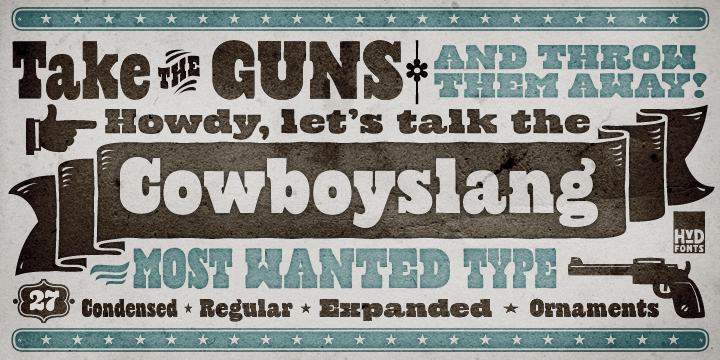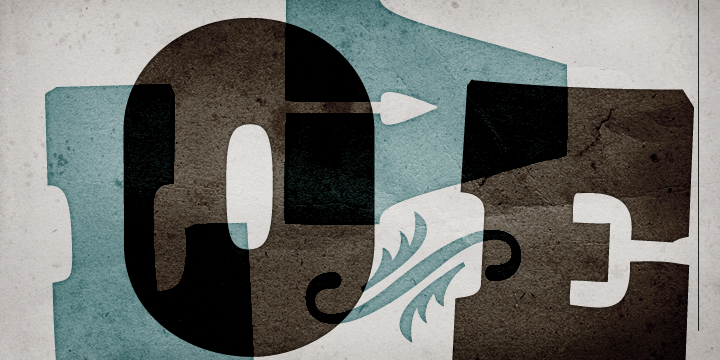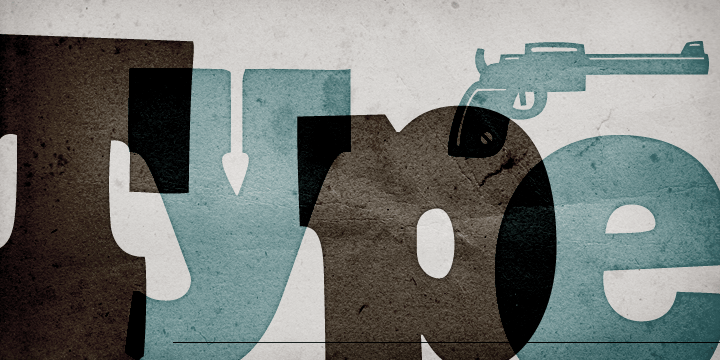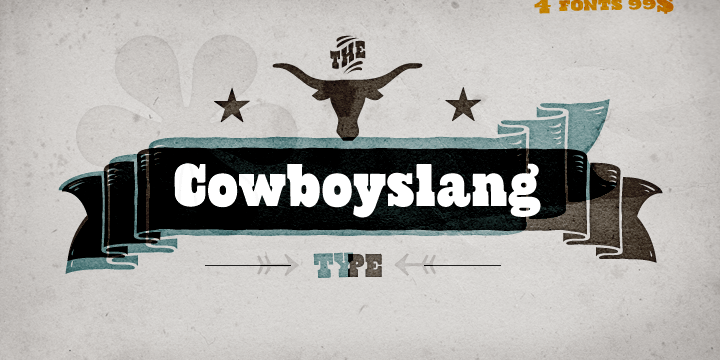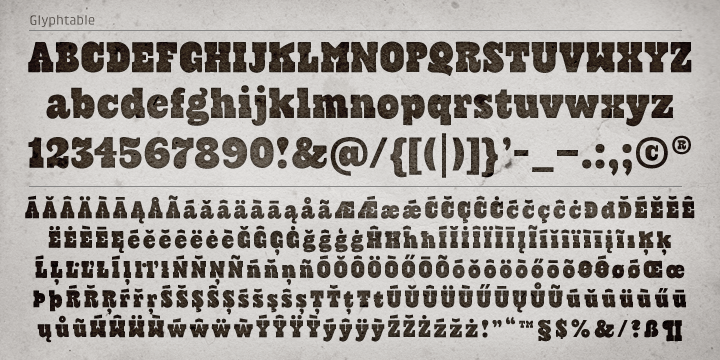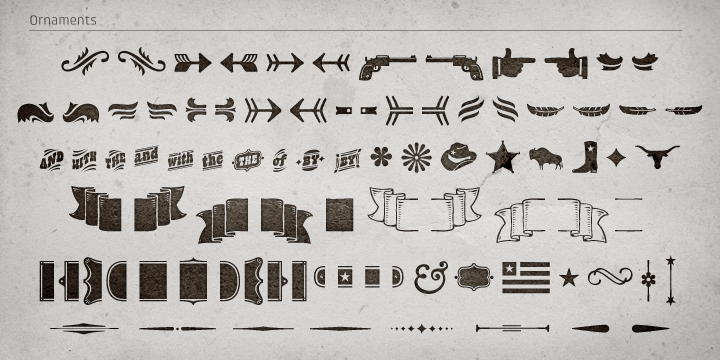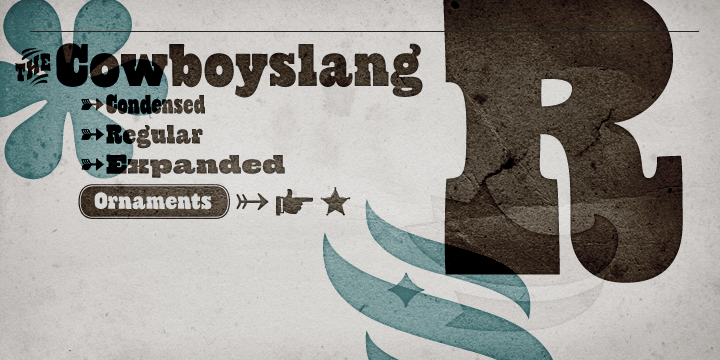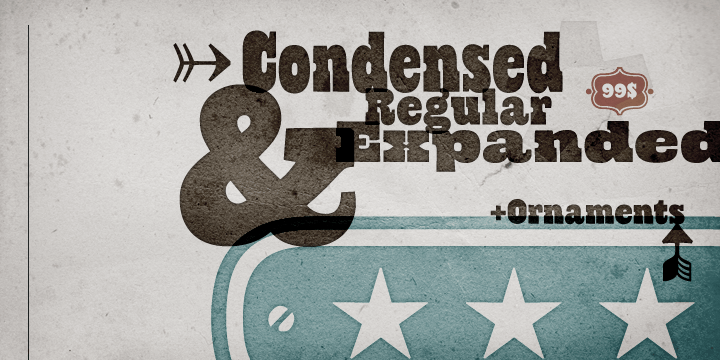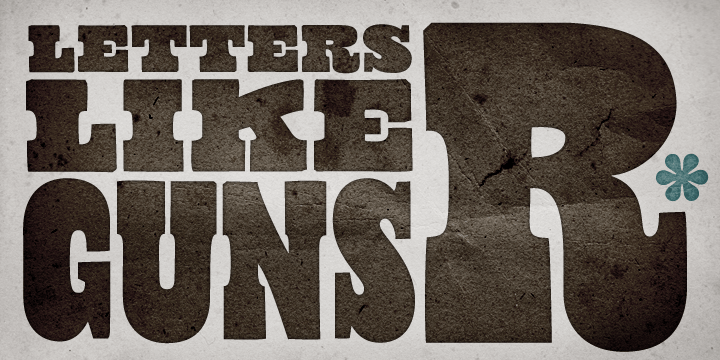
Cowboyslang
Font Family by HVD Fonts
Cowboyslang is a bold Western-style display font family with a rough, weathered voice and a distinctly hand-drawn feel. Its letterforms lean into vintage frontier character, giving headlines and short phrases an expressive, rugged presence that feels at home in Americana-inspired work.
This family includes four styles, offering a useful range for building layered, eye-catching type treatments while keeping the same dusty, rustic personality throughout. It’s a strong fit for posters, packaging, signage, apparel, branding, and decorative display projects that call for a cowboy, saloon, or old-west mood.